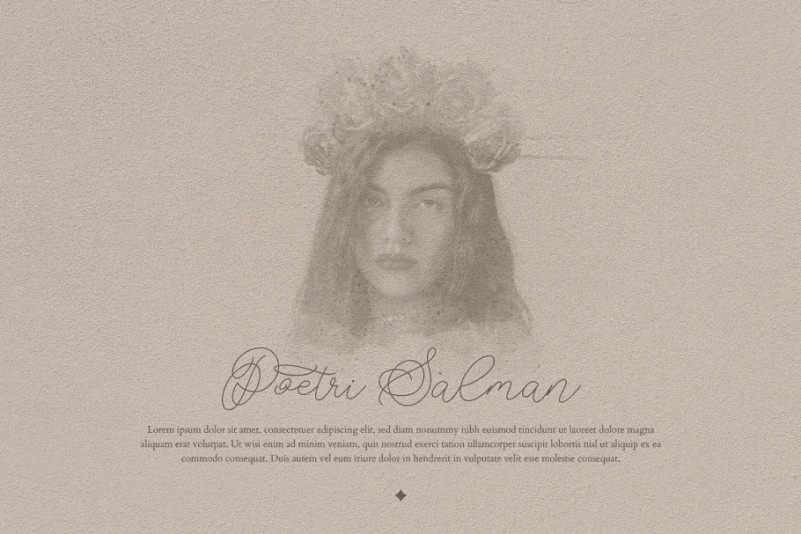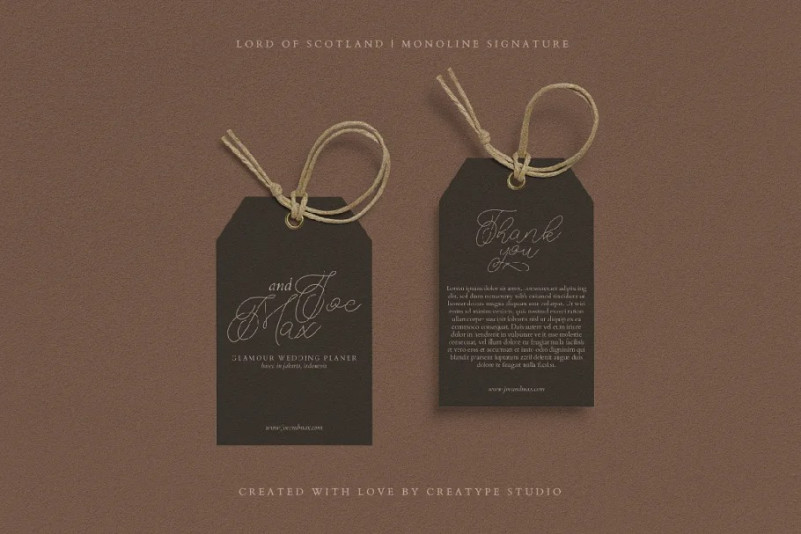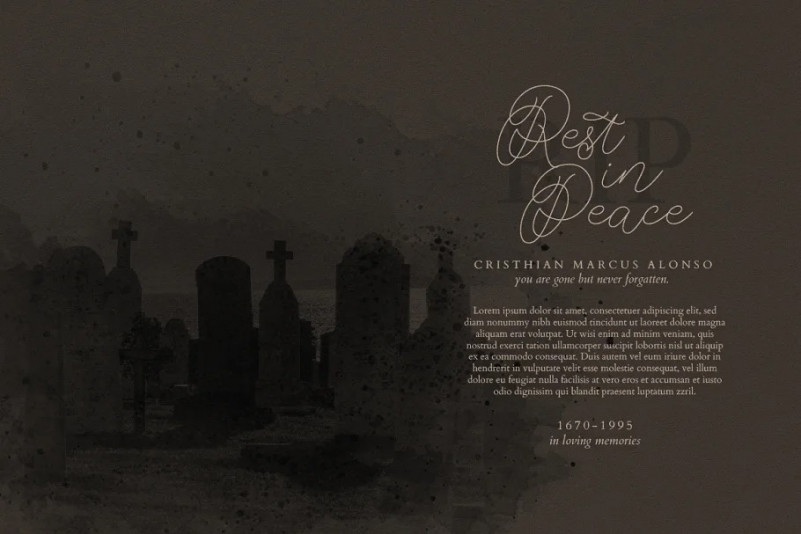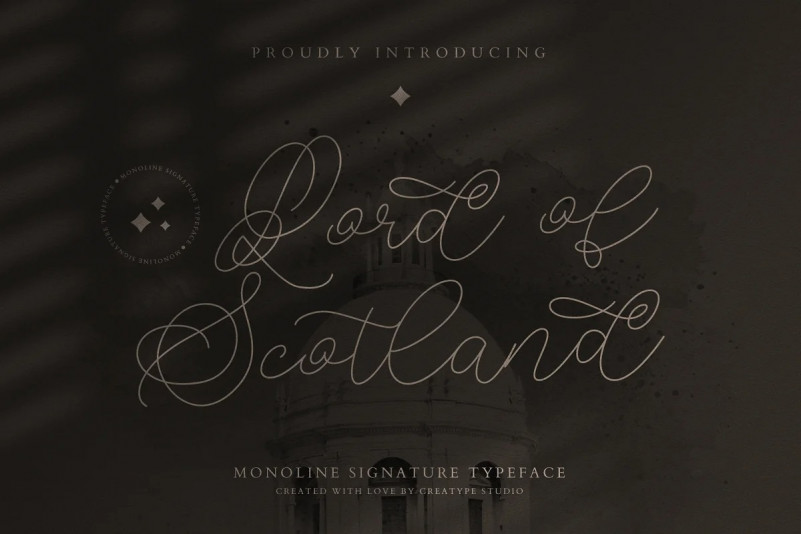
Lord of Scotland Handwritten Font
It’s a dazzling and timeless handwritten typeface created by Creatype Studio with a natural signature script that looks elegant and classy looks perfect for your font collection.
Lord of Scotland is perfect for branding projects, logo, wedding designs, social media posts, advertisements, product packaging, product designs, label, photography, watermark, invitation, stationery and any projects that need handwriting taste.